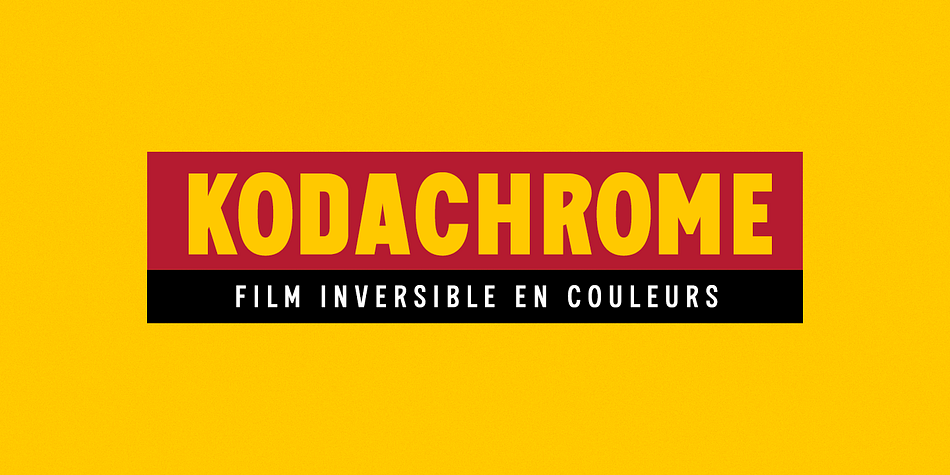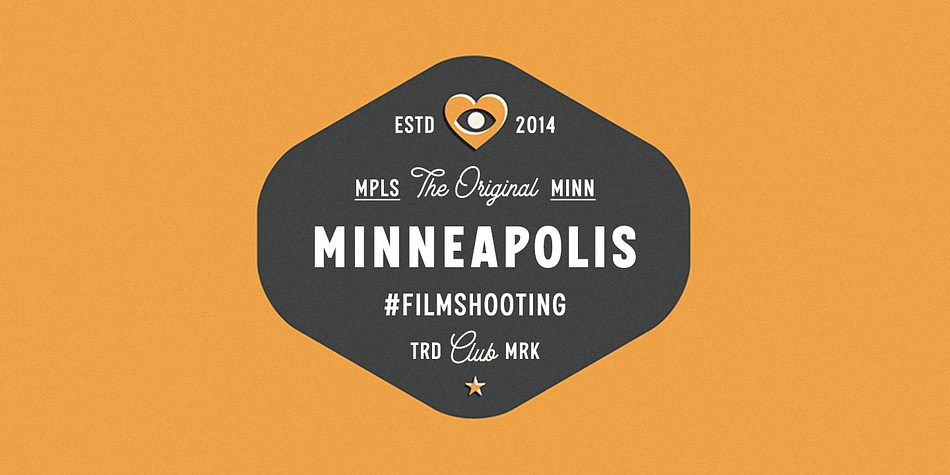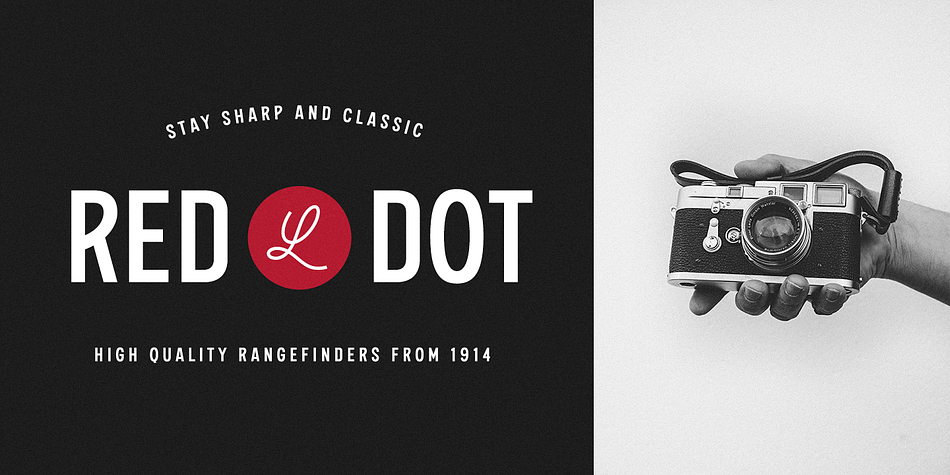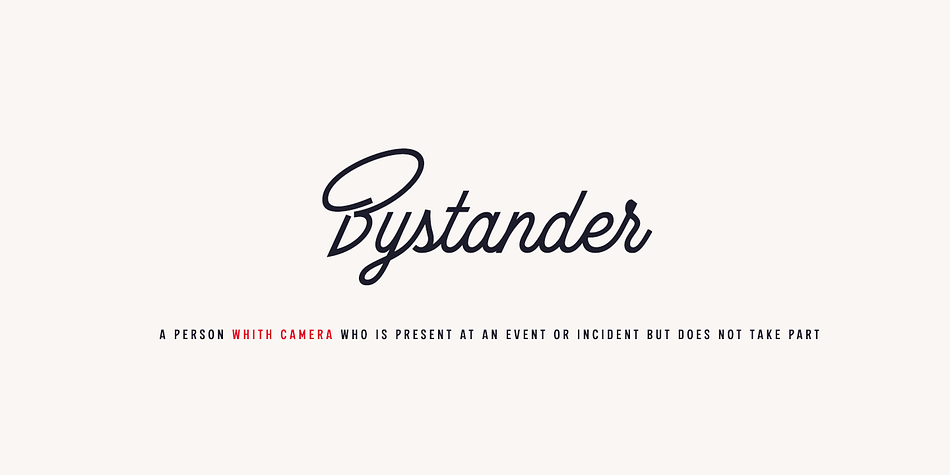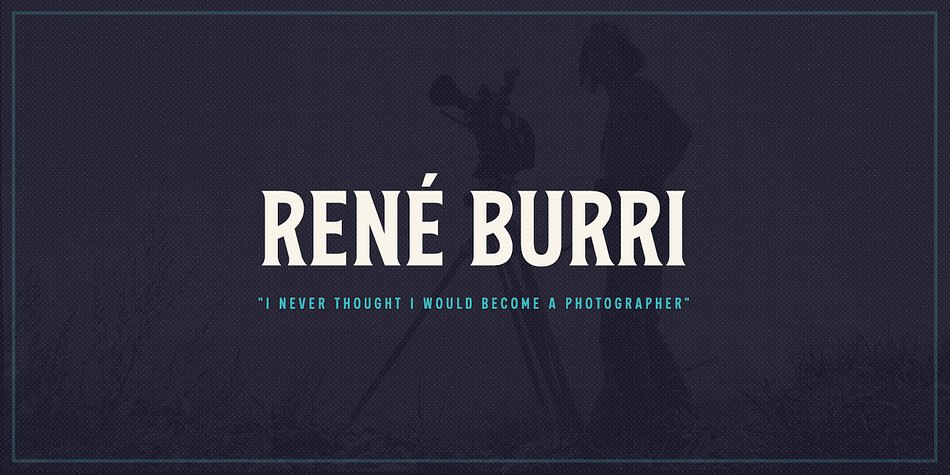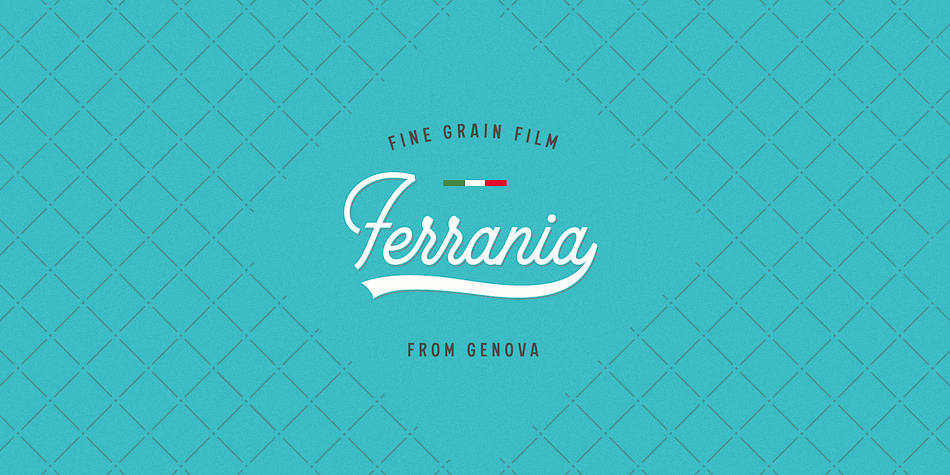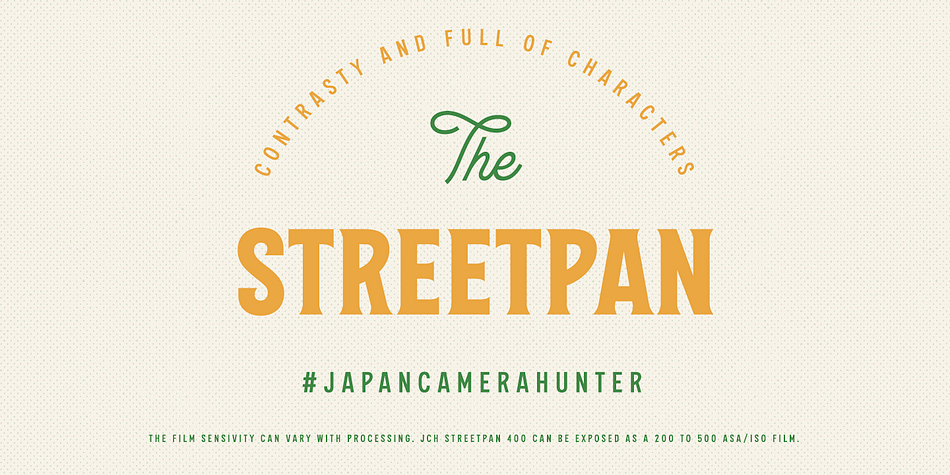
Designed by Roman Avdiushkin, The Bystander Collection is a multiple classification font family. This typeface has eleven styles and was published by Uniontype.
The Bystander is an original font collection of eleven fonts. Inspired by masters of art photography. It contains eleven typefaces in sans, serif and script styles, which are all works great together or in their own. The script version also combined with ending swashes, use stylistic alternates from 1 to 8 to work with them.
Styles | Display Sans, Display Serif, Script, Serif |
Designer | Roman Avdiushkin |